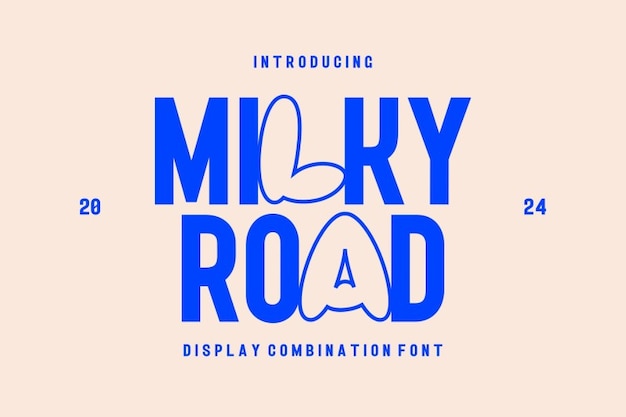
Milky Road Font
Milky Road is a modern font that captures the whimsy of balloons with its simple yet playful design. Each character floats effortlessly with rounded forms, evoking the carefree joy of a balloon-filled sky. Perfect for contemporary designs, invitations, or branding projects needing a touch of lighthearted charm, Milky Road adds a delightful and airy feel to your text.